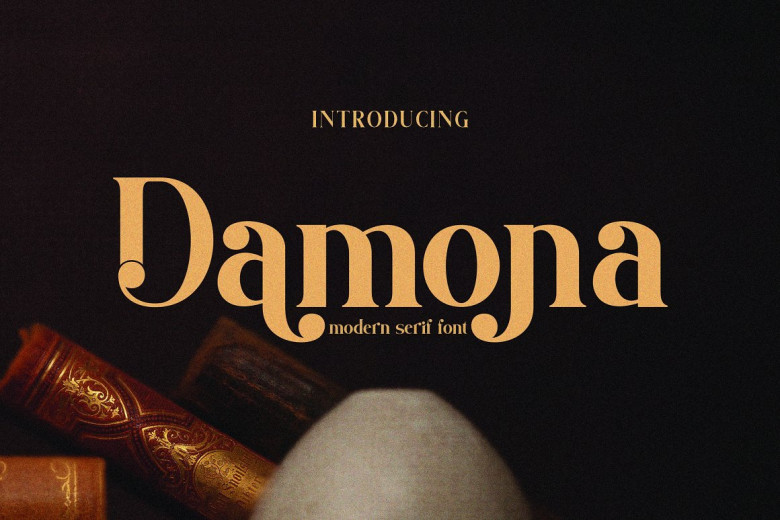
Damona Font
Damona- Modern Retro Font, Vintage Font, Groovy Font and Groovy Font from Procreate Font to Canva Font and Cricut Font is our latest creation, modern serif with ligatures and alternates, multilingual support, ideal for branding purposes such as business logos, magazines and more.
Damona Serif Font